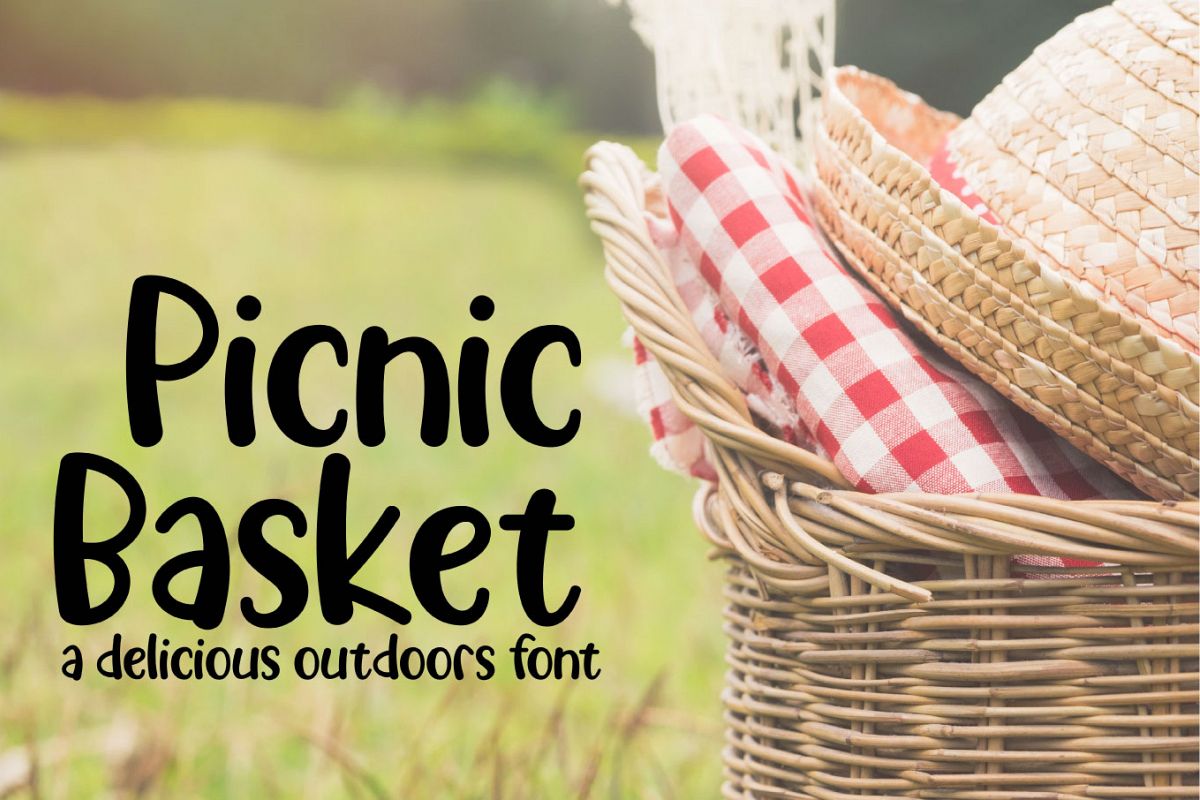
Picnic Basket is a fun font to use in all of your crafting projects! This font is not thin so it will be easy to cut and weed. Picnic Basket is also great for printing! Make some invitations to invite the family over for a fun outdoor BBQ!